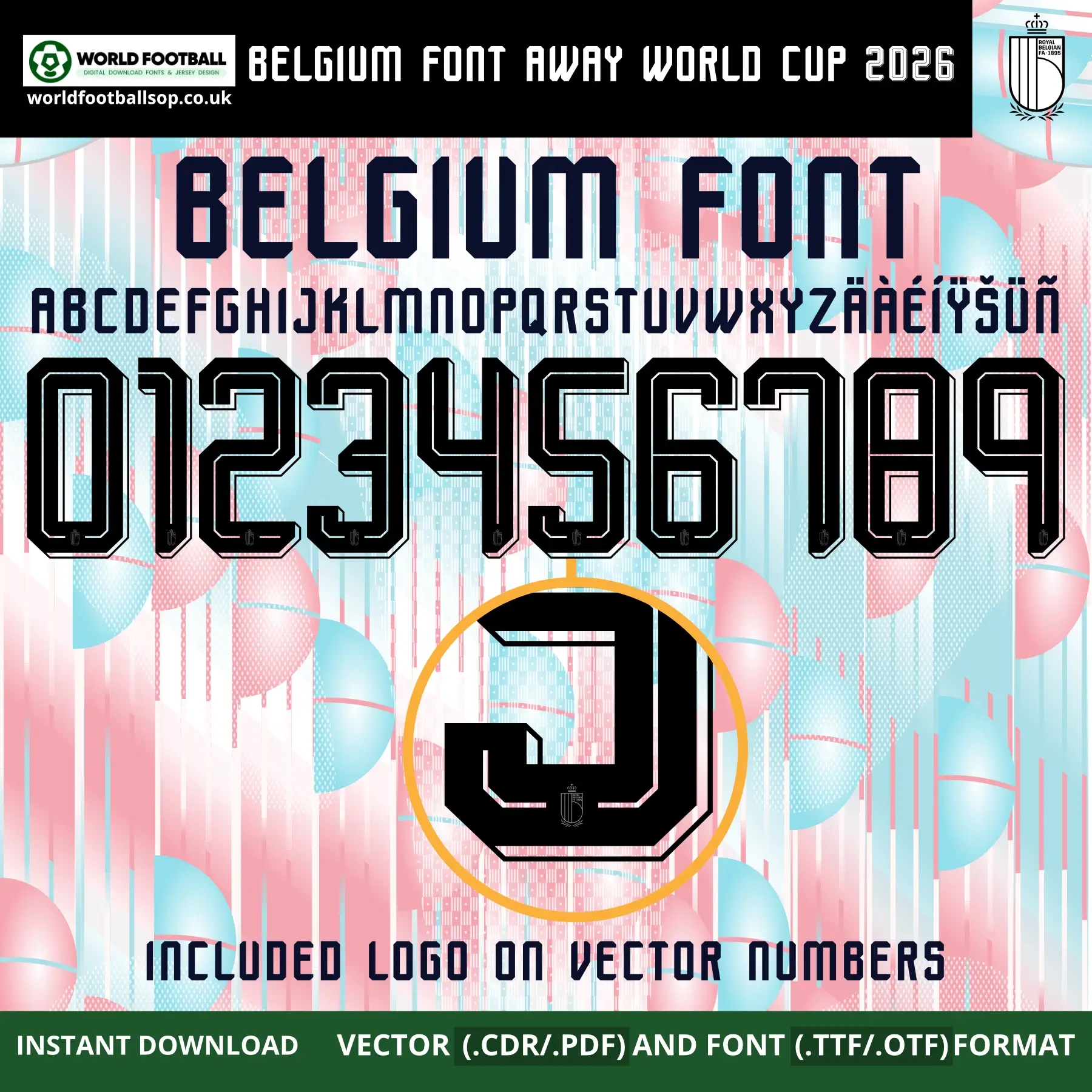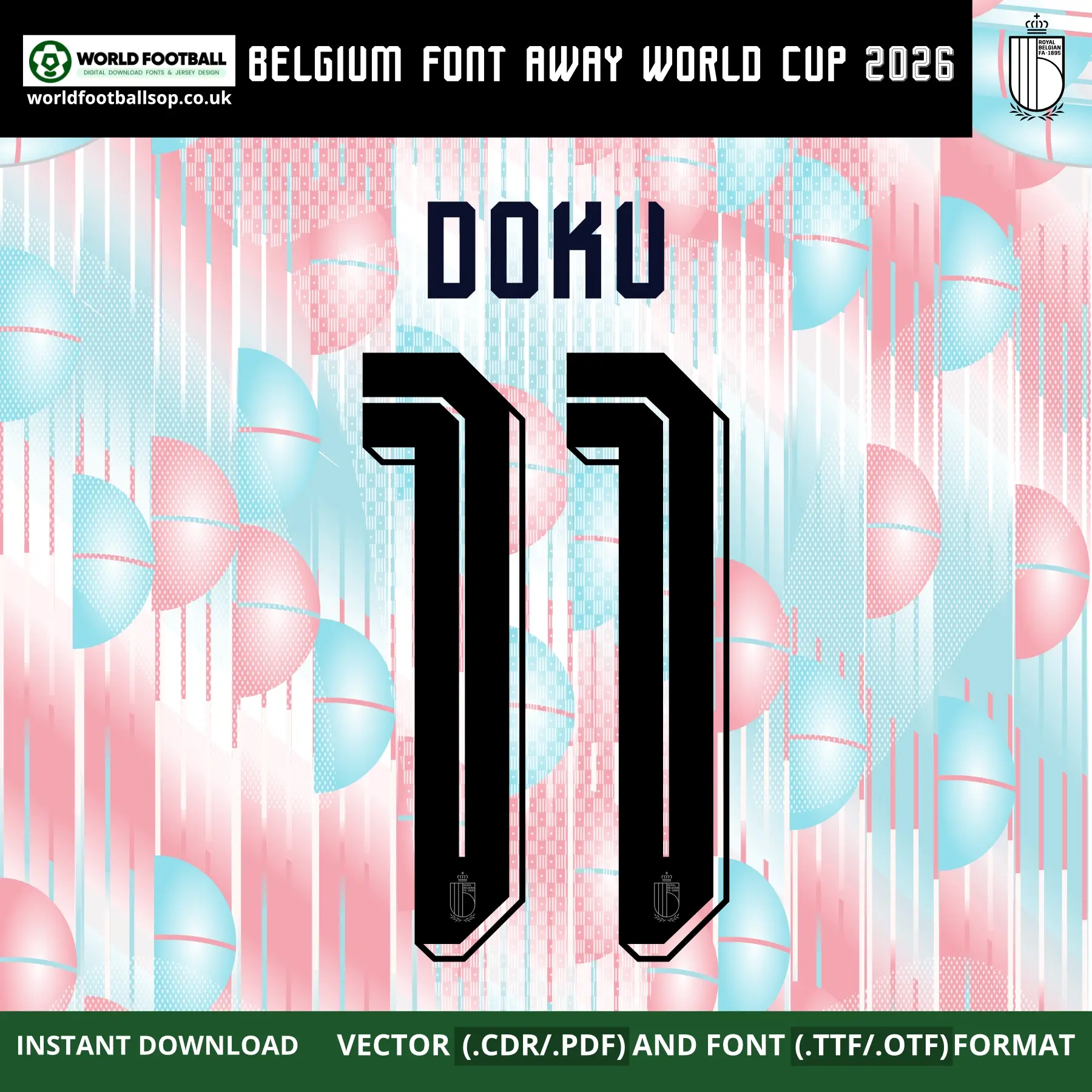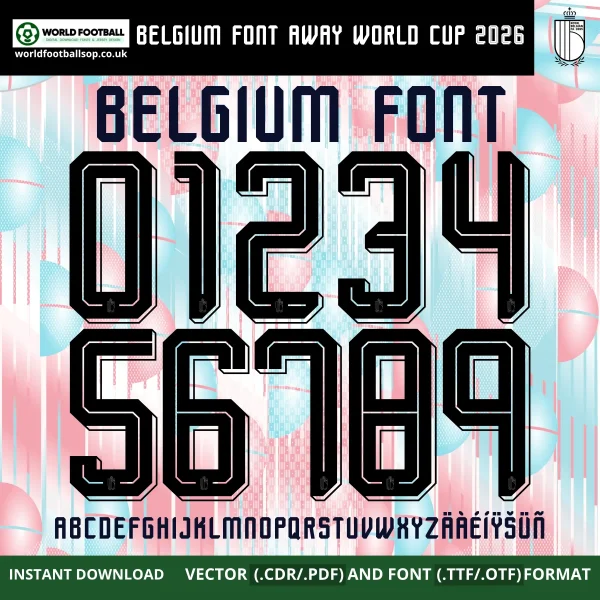
Belgium Away Font World Cup 2026 - Official‑style Jersey Typography
This Belgium Away Font World Cup 2026 kit recreates the bold, geometric lettering used on Belgium's eye-catching pastel away shirts for the 2026 FIFA World Cup in USA, Mexico and Canada. The wide, rounded-square numbers and letters feature bold black fill with a clean white inner-line detail and the RBFA crest embedded on every vector character, perfectly capturing the modern look of Belgium's official away kit typography against the striking pink and sky blue bubble-and-drip pattern background. It is perfect for fans, designers and printers who want authentic‑looking names and numbers on custom Belgium Red Devils away kits and football graphics.
RBFA crest logo embedded on every vector number and letter
Full uppercase alphabet A-Z and numbers 0-9 with extended Latin accents (Ä, À, É, Í, Ÿ, Š, Ü, Ñ)
Preview layouts showing complete number set and example name/number combo - DOKU 11
World Cup accuracy: Inspired by the exclusive Belgium Away Font World Cup 2026, not a generic typeface
High legibility: Bold, wide rounded-square forms keep numbers clear on both TV and print designs while maintaining Belgium's unique pastel away identity
Whether you are designing a full squad of custom Belgium Red Devils away shirts or a single fan jersey with your own name and number, this Belgium Away Font World Cup 2026 gives your project a professional, on‑pitch look.